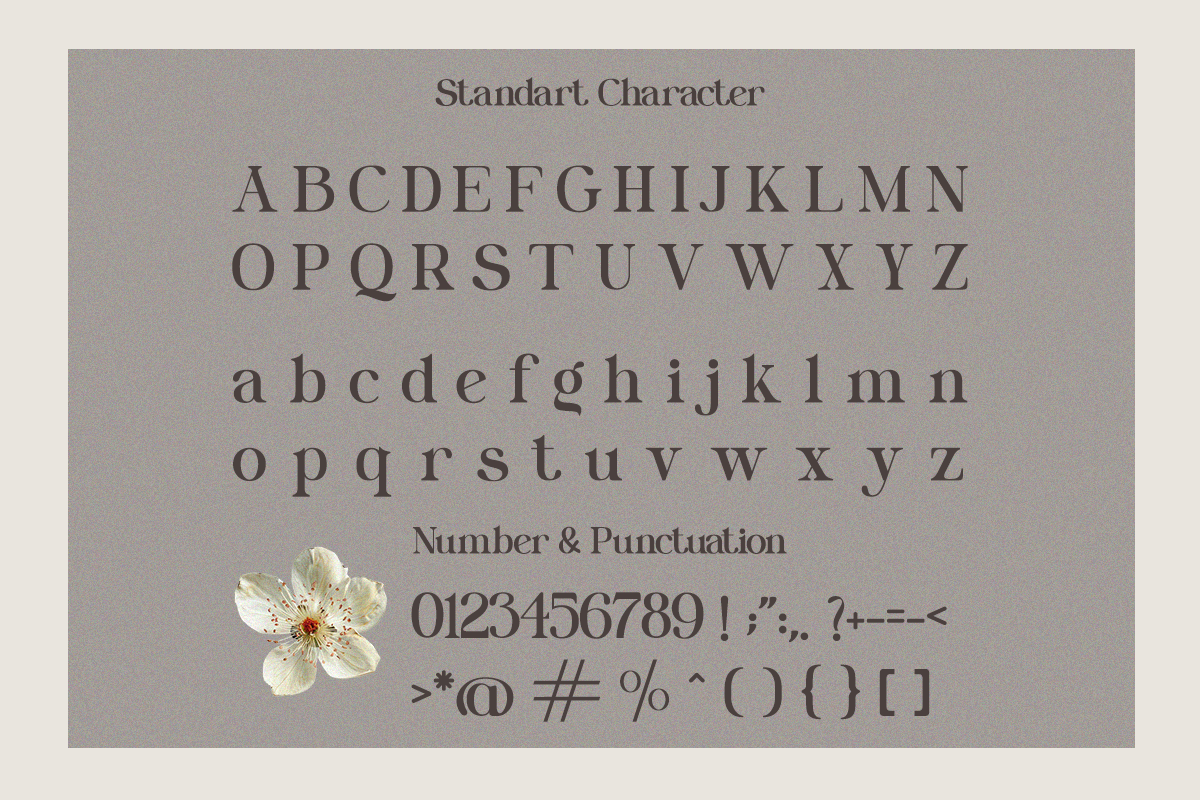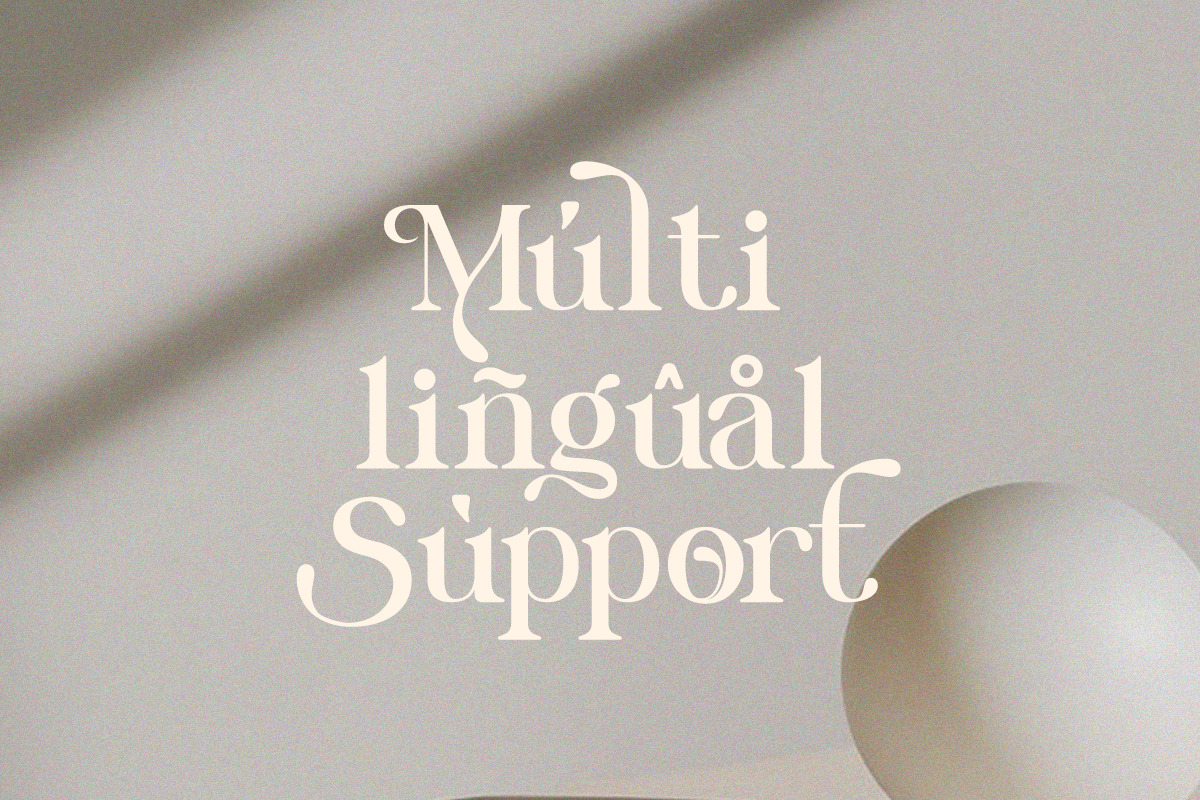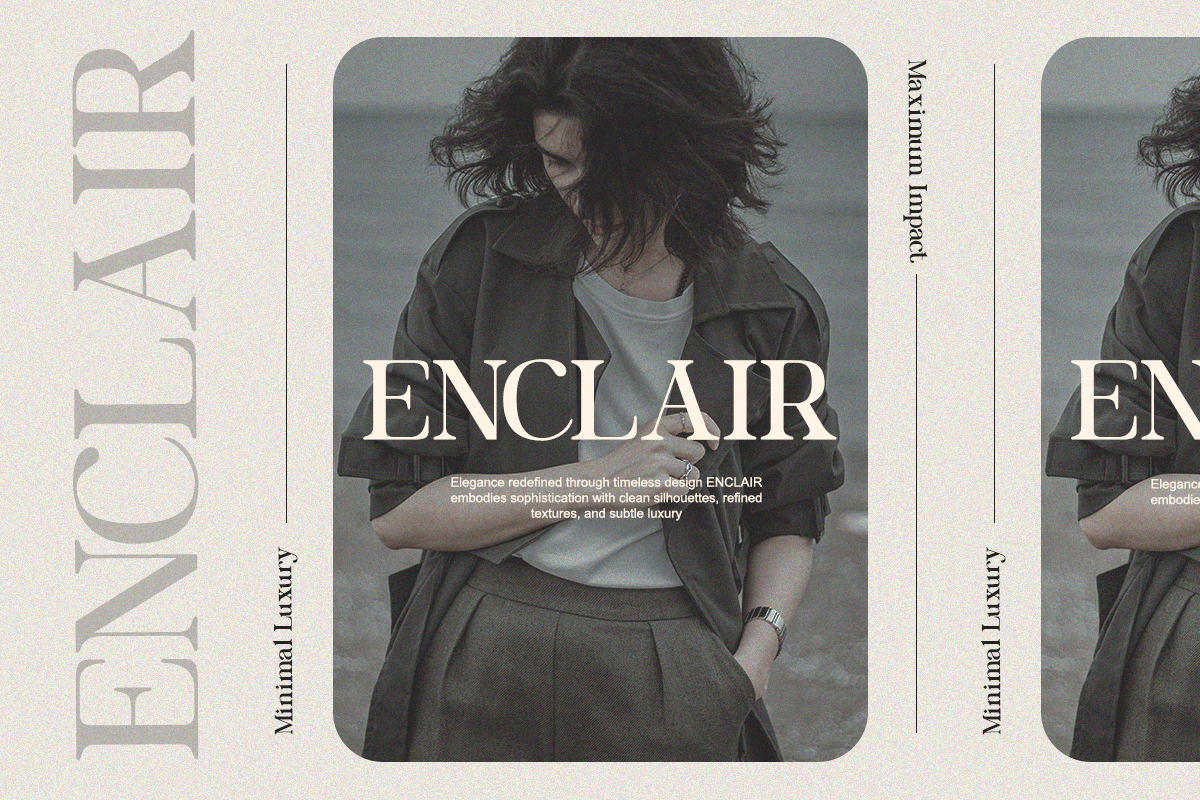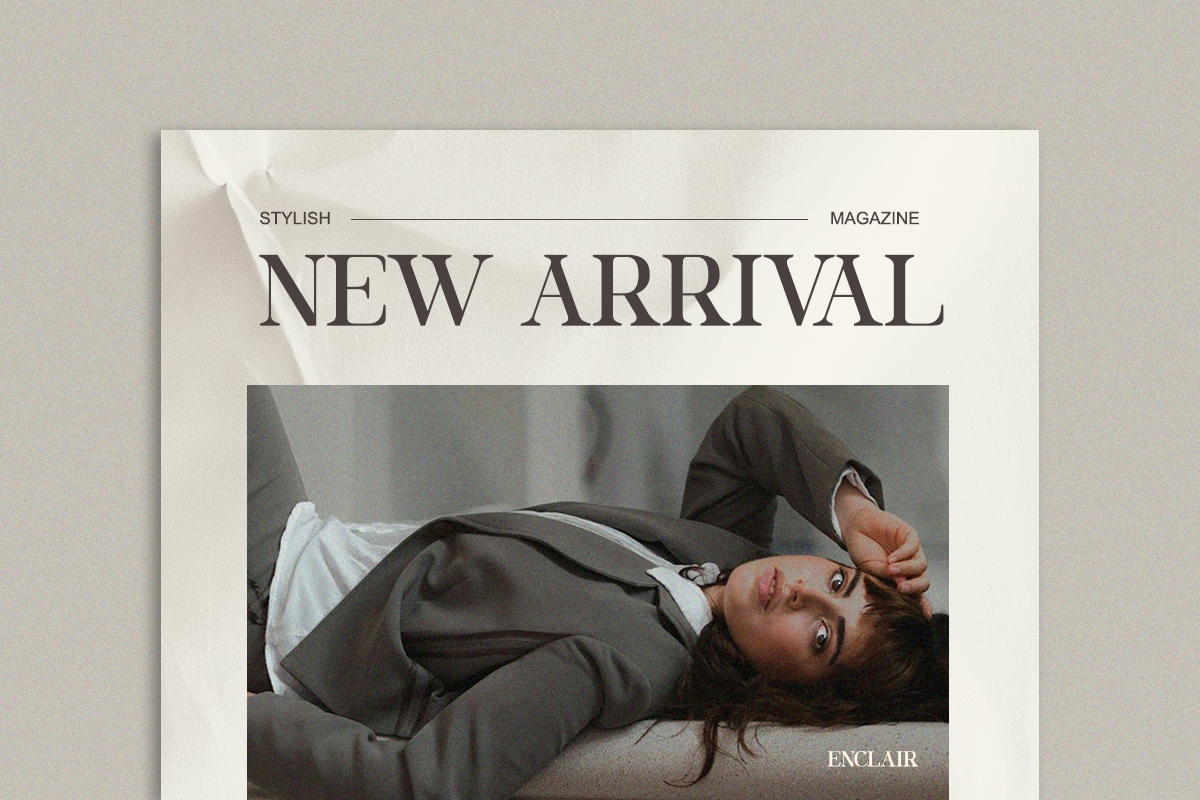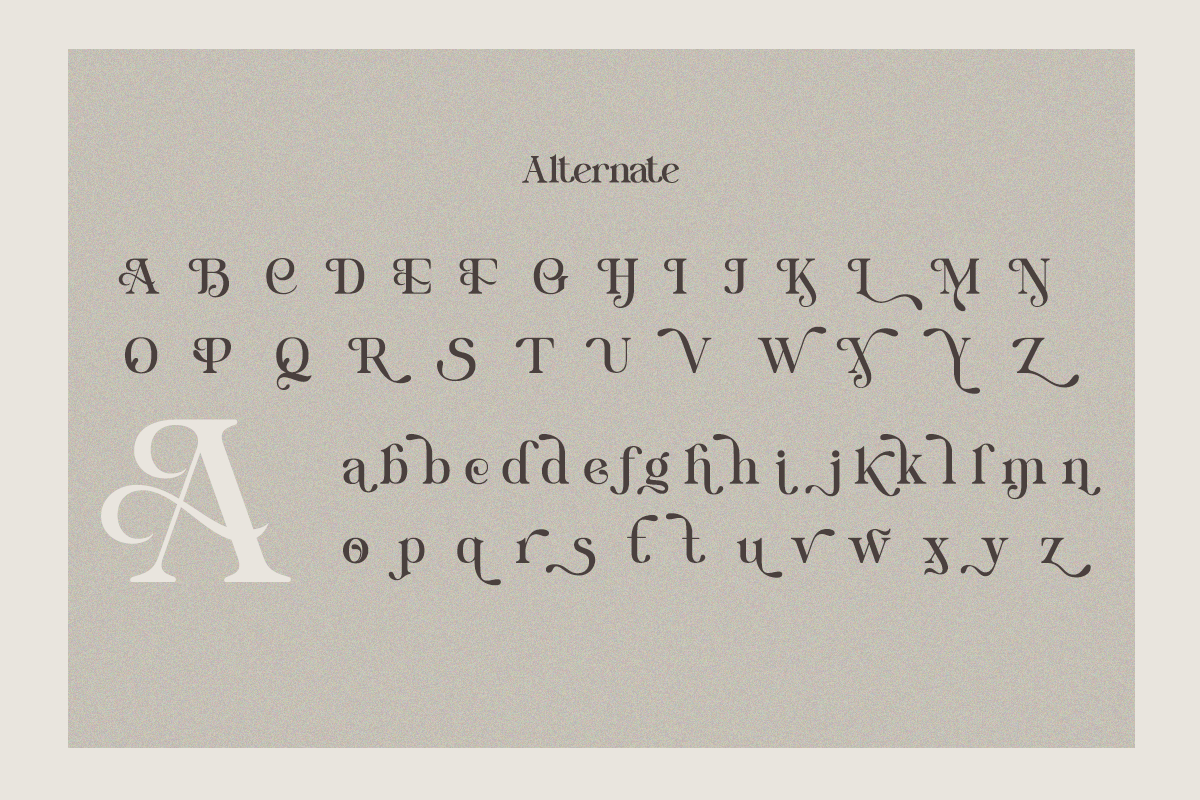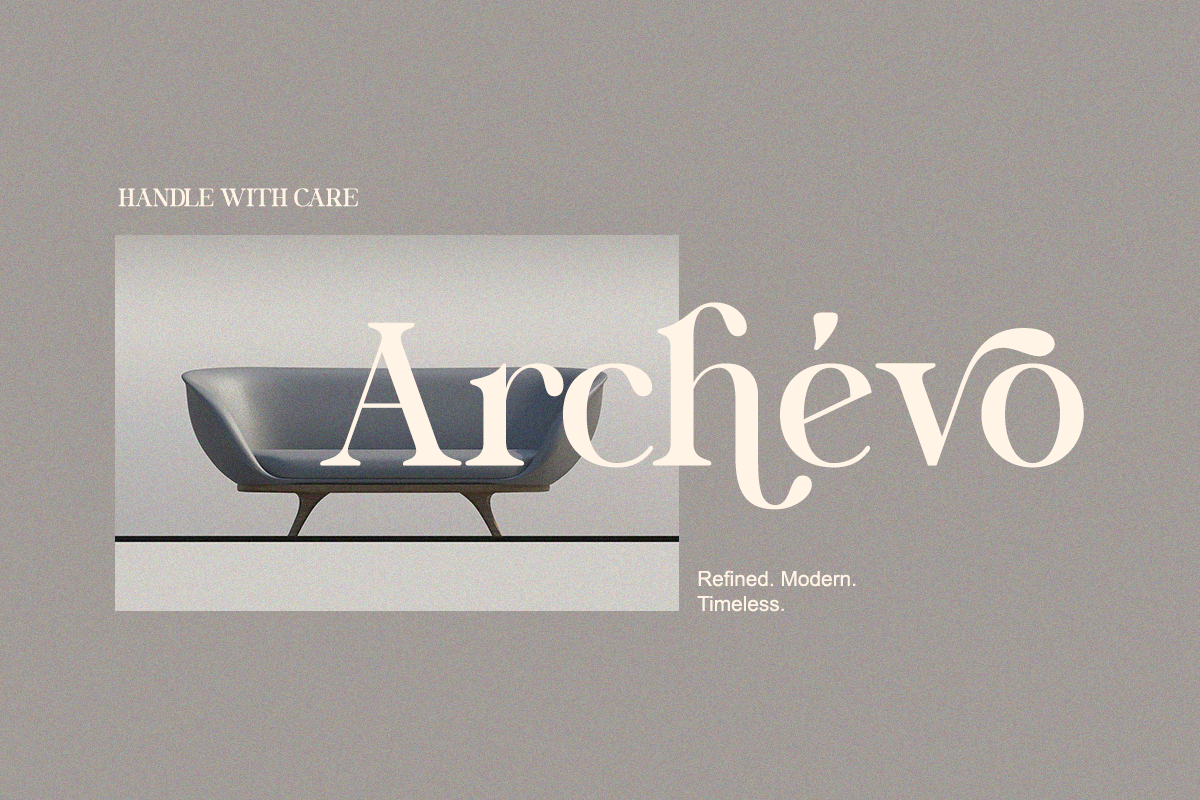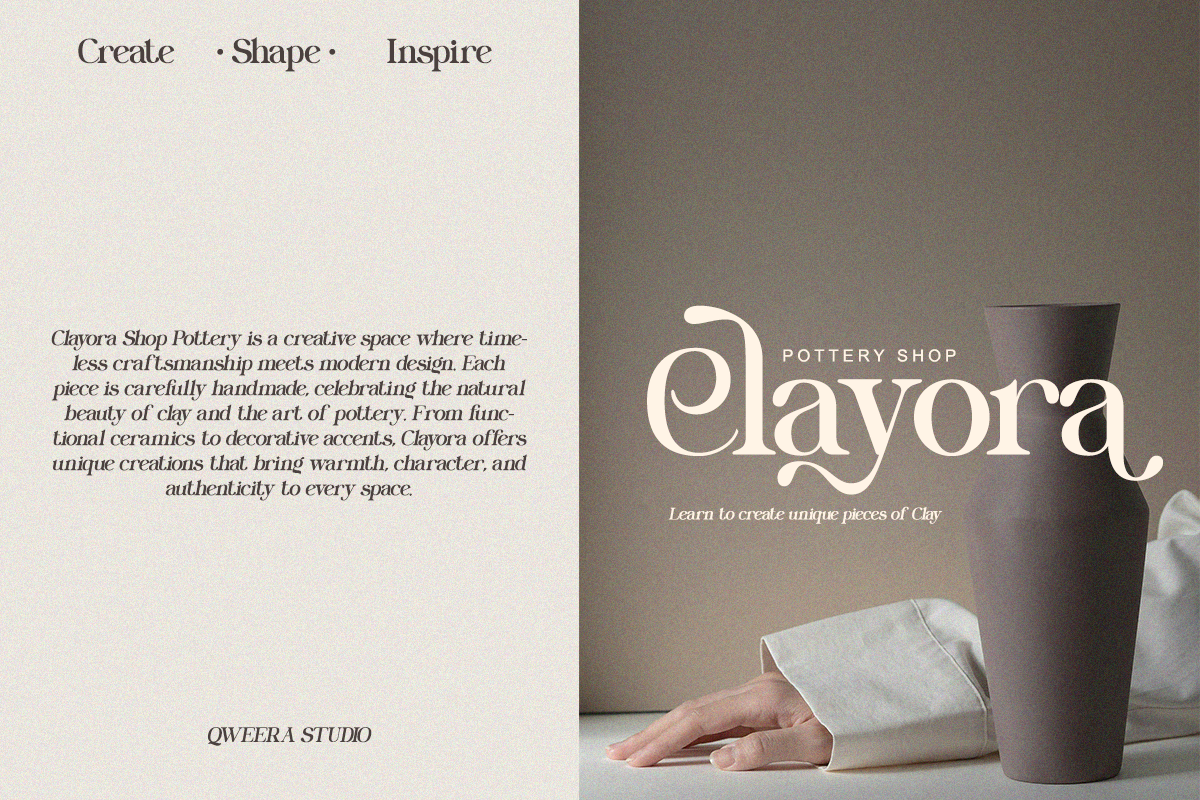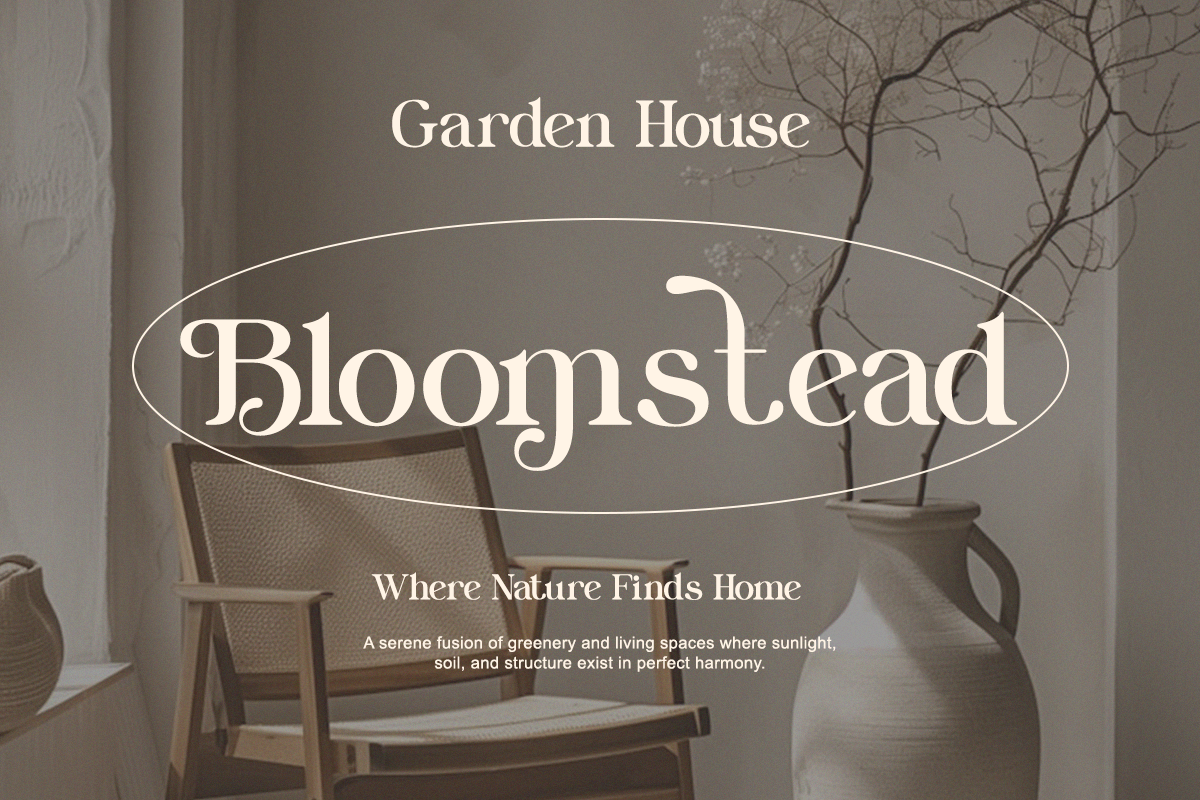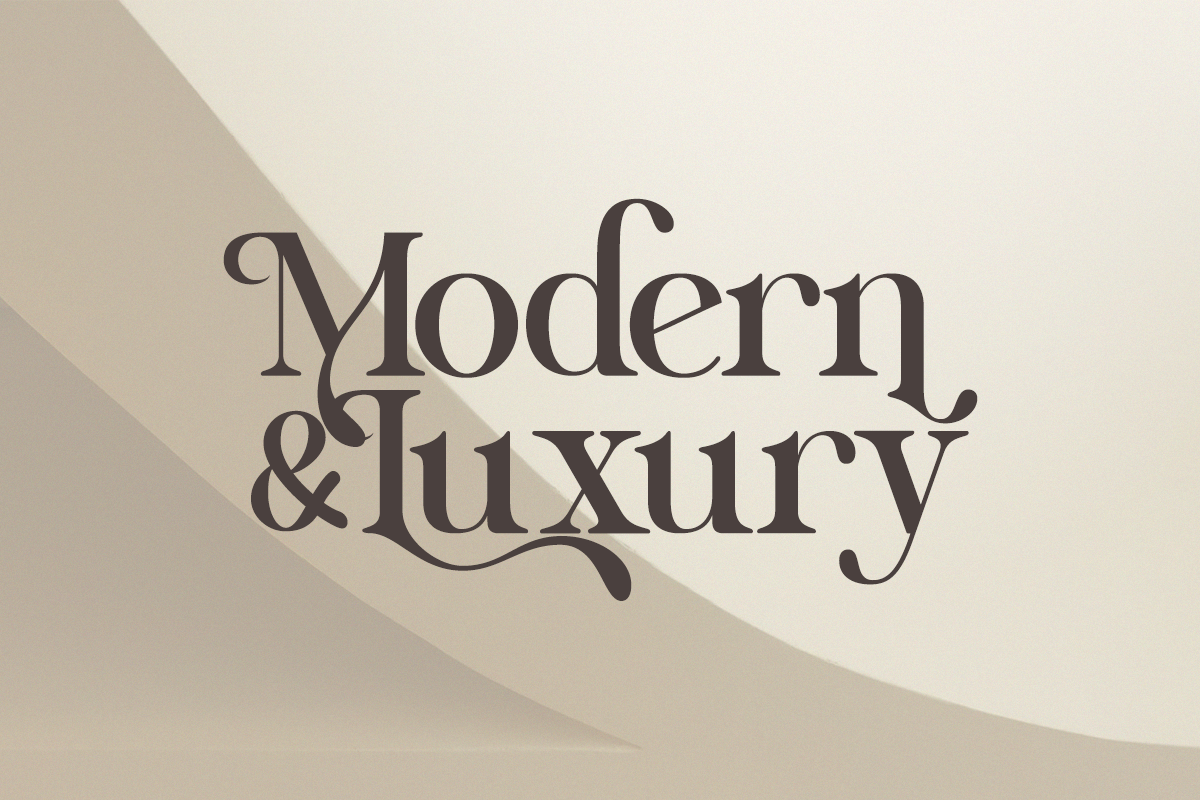
Quirky - Modern Stylish Elegant
Quirky is a modern serif display font that merges refinement and personality. With elegant shapes and bold ligature details, it’s crafted for fashion branding, magazines, and product packaging. Quirky brings character to minimalist layouts and transforms ordinary words into luxurious design statements.
- Regular & Italic
Perfect For: Modern branding, editorial design, and logo creation.